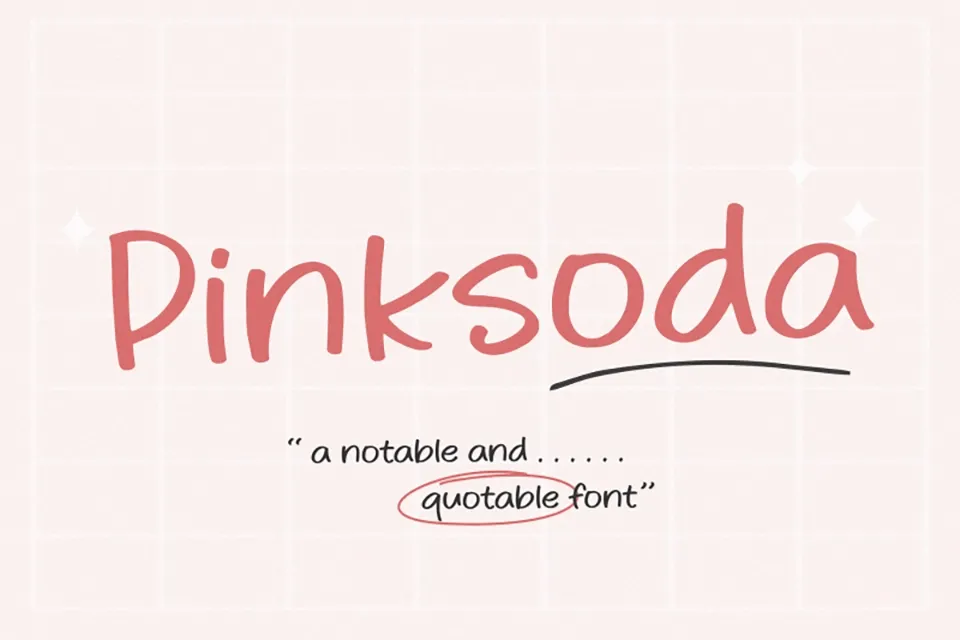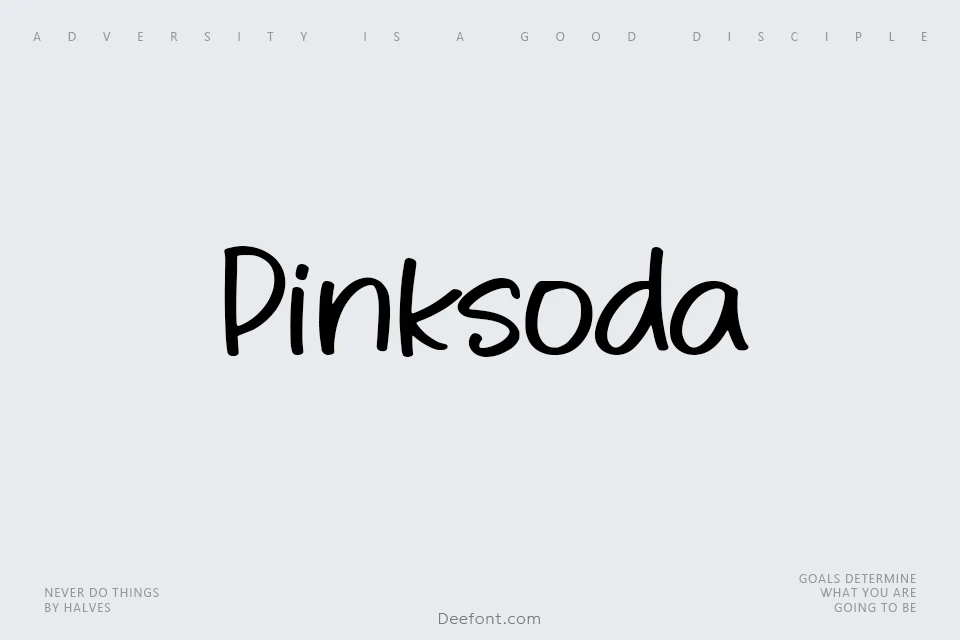
Pinksoda Font
Pinksoda Font is a sweet and friendly handwritten font. Its natural and unique style makes it incredibly fitting for a wide range of designs, from personalized stationery and invitations to posters and social media graphics. Let your creativity shine with this notable and quotable font that brings a touch of charm to any project.